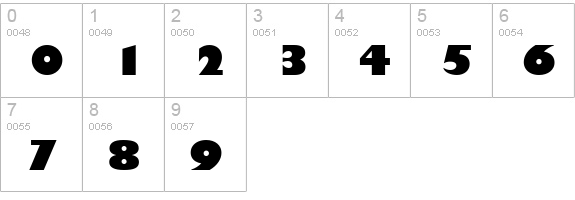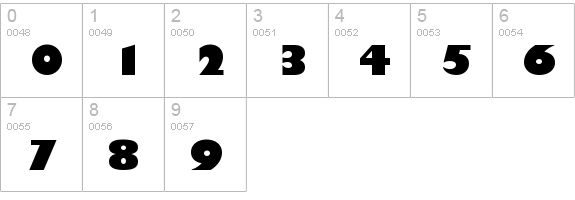
Gill Black SSi Black is a maximum-weight, dramatic variant in the Gill typeface family \xE2\x80\x94 well suited to maximum-impact headlines, posters, and packaging.
Gill Black SSi Black is a modern and stylish font that exudes sophistication and elegance. Its bold and distinct letterforms make it perfect for creating eye-catching designs and grabbing attention. The smooth curves and sharp edges of this typeface give it a sleek and contemporary look that is sure to make your projects stand out. The best part? Gill Black SSi Black is available for free download at FontsMarket.com. This means you can easily access this premium font without breaking the bank. Whether you're designing a logo, creating a poster, or crafting a website, Gill Black SSi Black is a versatile and dynamic font that will elevate your work to the next level. Download it now and unleash your creativity with this stunning typeface!